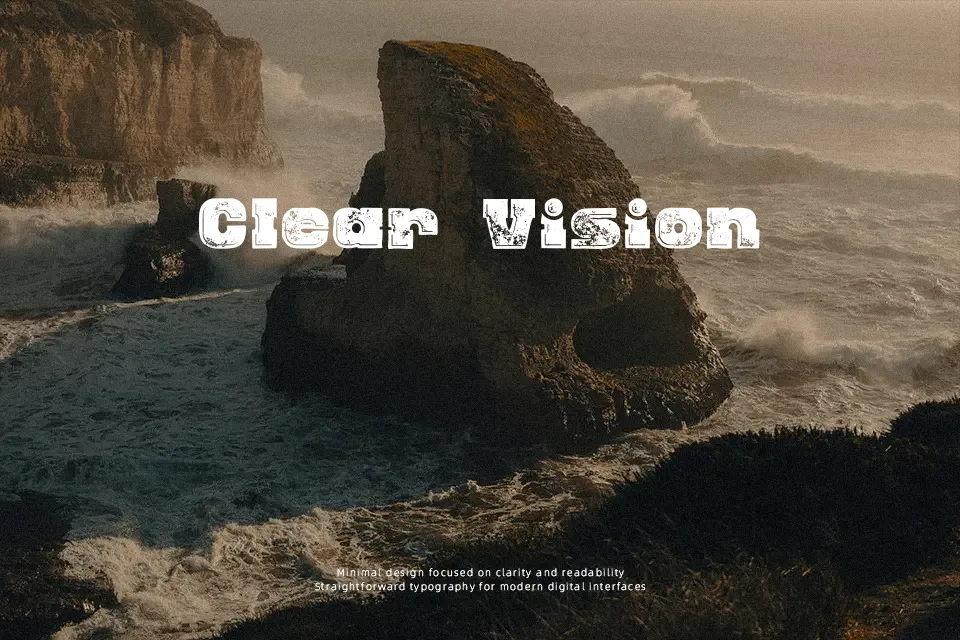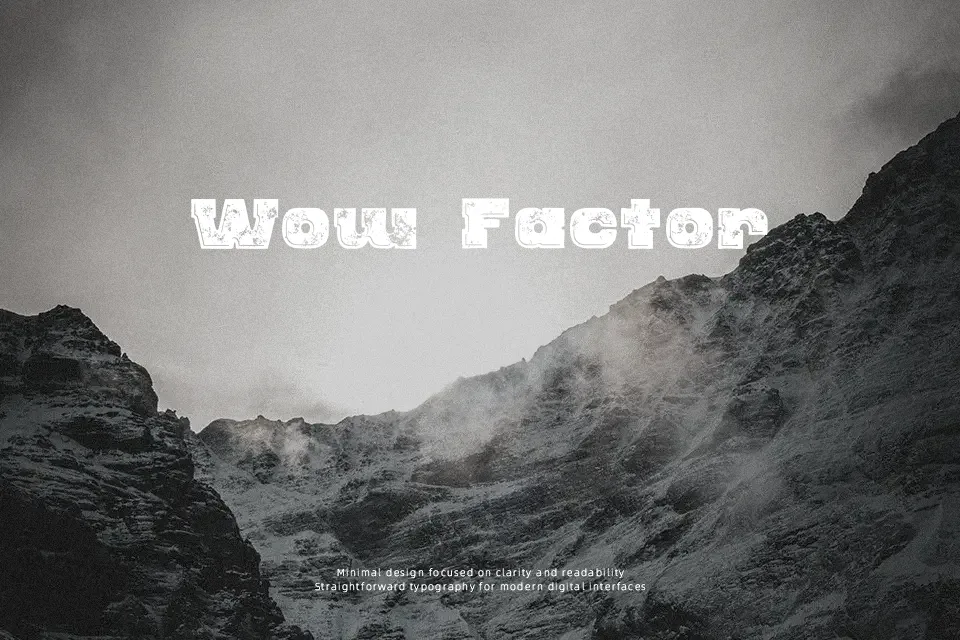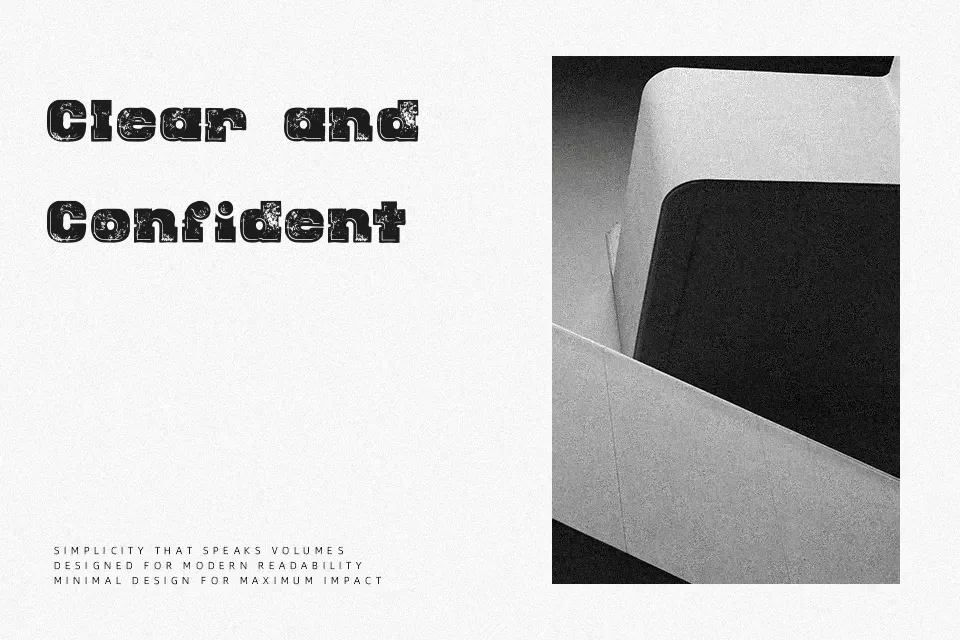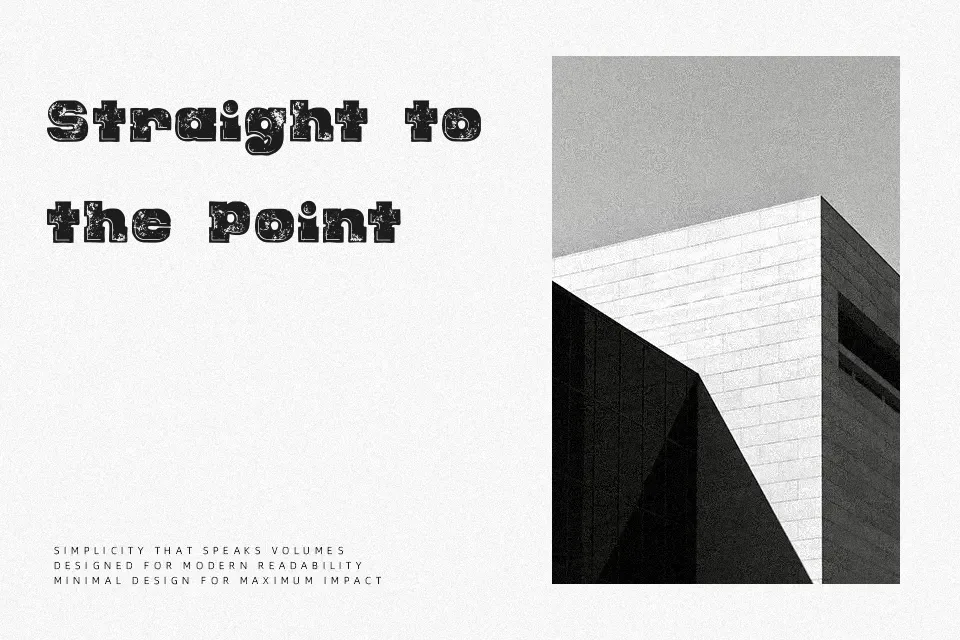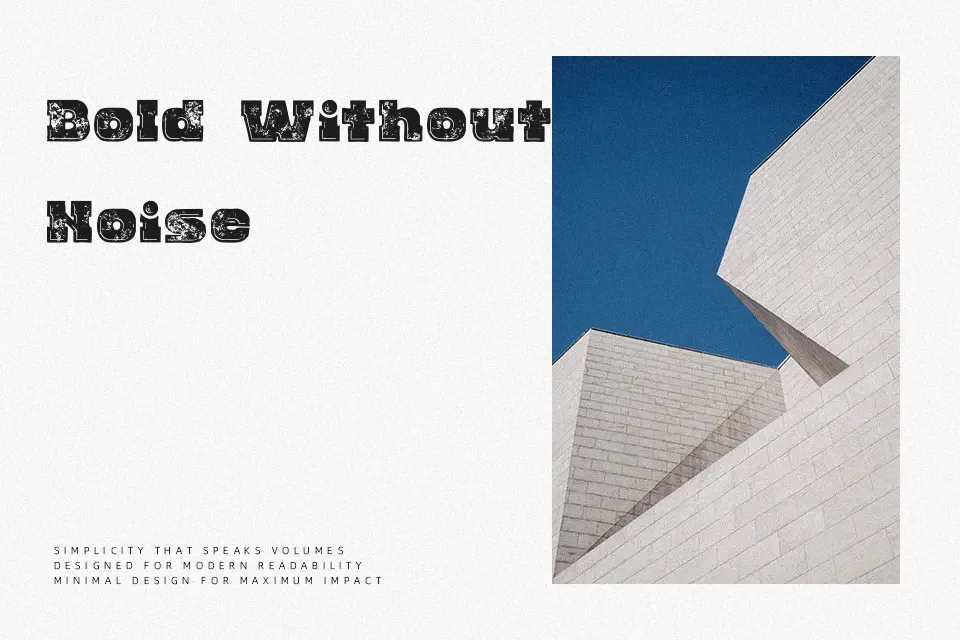
Rhino Font
Designed by Peter Olexa
A practical evaluation of Rhino Font reveals a heavily distressed display typeface built upon a bold, solid foundation. The thick, commanding strokes are interrupted by gritty, irregular textures that give the letterforms a raw and rugged appearance. Its proportions remain wide and grounded, with balanced spacing that helps maintain clarity in larger headlines despite the eroded details. The bold letterforms maintain strong visibility in large display text, making it highly effective for impactful poster designs, vintage apparel, and bold packaging. However, the intricate grunge textures become less effective at smaller sizes. Dense forms reduce comfort during extended reading, meaning this design is far less suitable for long paragraphs or small interface elements.
vintage apparel graphics, grunge music festival posters, bold outdoor branding, rugged product packaging
long continuous paragraphs, small interface labels, dense corporate reports
Perfect for branding, headline, and packaging, with a bold and decorative style.